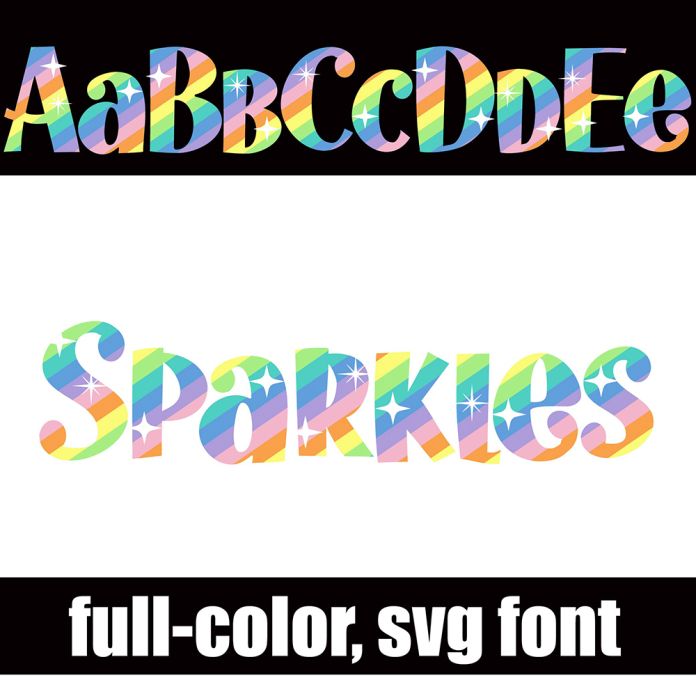
This full-color font features a rainbow of pastel colors and sparkles throughout. There is an alt version you can access through your system's character map that contains additional colors of all the letters. This font works best for titles, displays, posters and more. Please note color fonts will show as black in non compatible programs. This font type is compatible with Silhouette Studio.